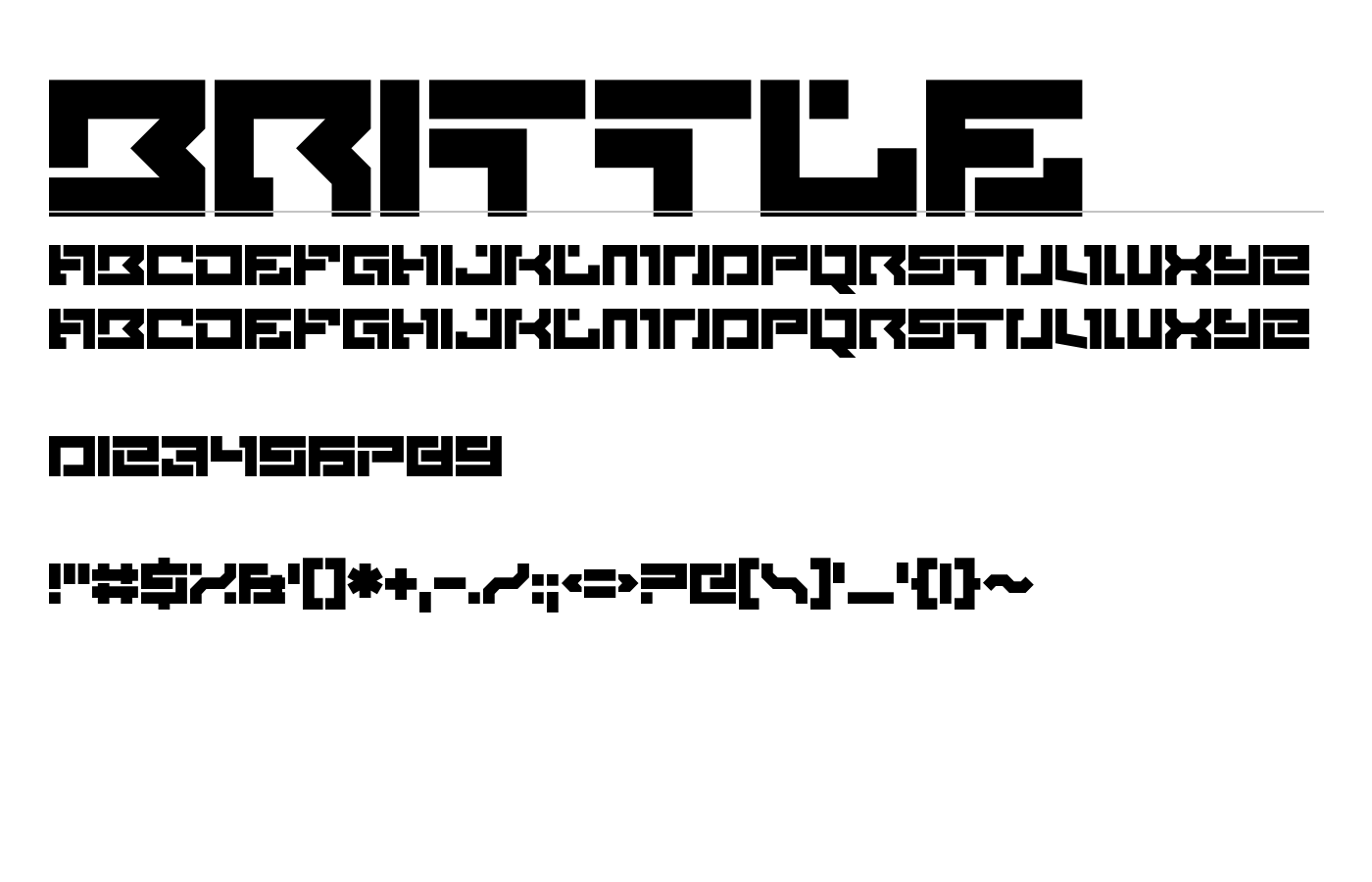
Brittle is a bold, geometric sans serif font with a futuristic and blocky style characterized by sharp angles and heavy weight. Its high contrast between solid black forms and negative space creates a striking, industrial feel, making it ideal for eye-catching headlines, tech branding, and modern poster designs. This font’s unique, almost mechanical shapes convey strength and innovation, perfect for brands seeking a strong, contemporary identity.
Brittle Font
About Brittle Font
| Designer | NAL |